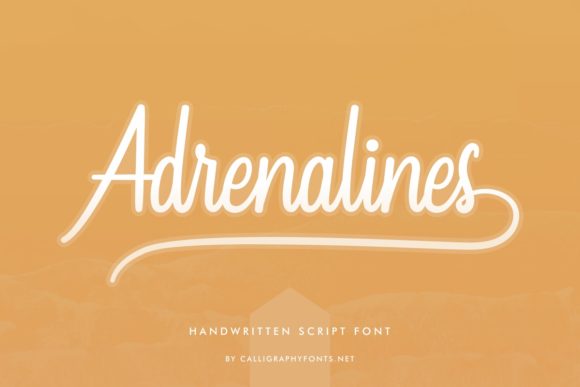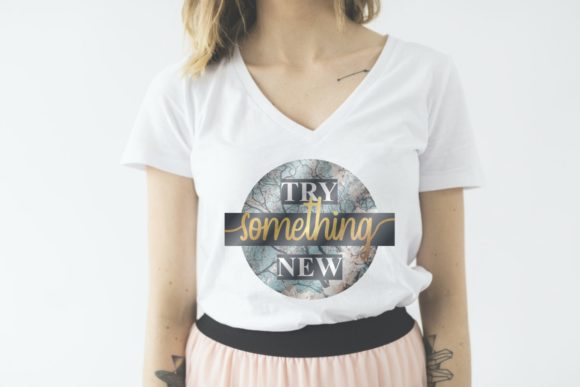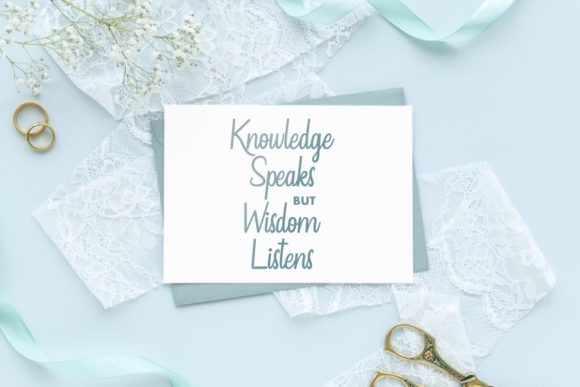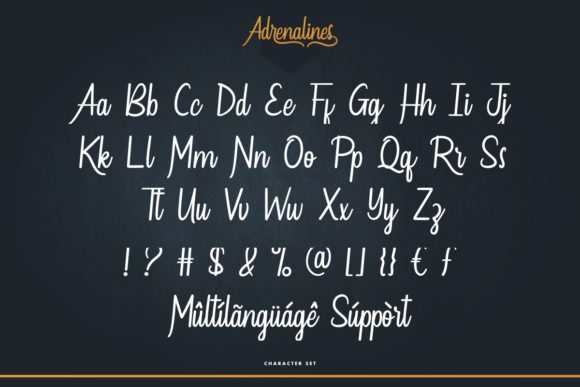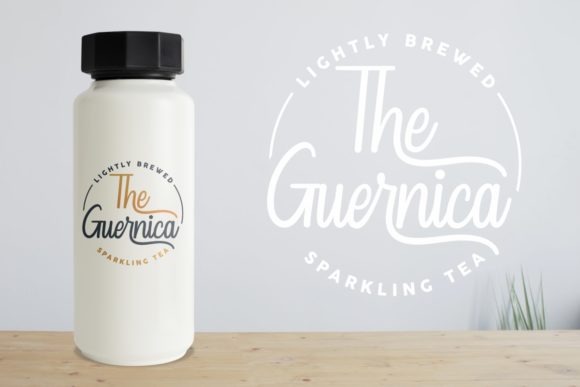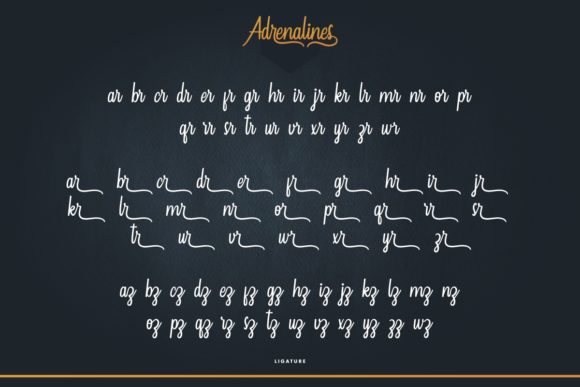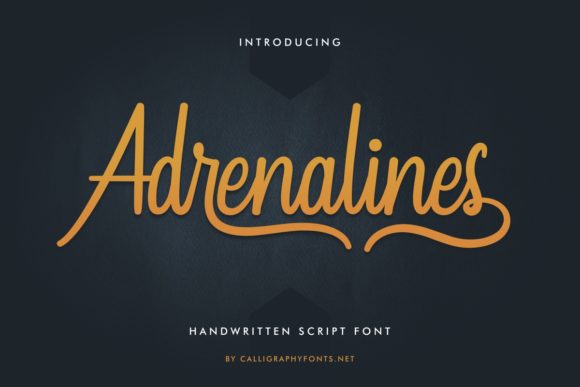
Discover the Elegance of Adrenalines Font: A Stylish and Delicate Addition to Your Designs
In the world of typography, fonts play a crucial role in conveying the message and aesthetic of a design. For designers and crafters looking for a stylish and delicate font to elevate their projects, Adrenalines Font is an excellent choice. This beautiful font boasts a clean, thin, and smooth vibe that is sure to make it a hit in any design you add it to.
What Makes Adrenalines Font Stand Out?
Adrenalines Font is more than just a pretty face; it has several features that make it a valuable addition to any designer’s toolkit. Here are some of the key characteristics that set it apart:
- Clean and Thin Design: The font’s sleek and slender lines give it a modern and sophisticated look that is perfect for designs that require a touch of elegance.
- Smooth Vibe: The smooth curves and lines of Adrenalines Font ensure that your designs look polished and refined, making it ideal for projects that require a high level of professionalism.
- PUA Encoded: One of the most significant advantages of Adrenalines Font is that it is PUA (Private Use Area) encoded. This means that you can easily access all the glyphs and swashes, giving you greater flexibility and creative control over your designs.
The Benefits of Using Adrenalines Font in Your Designs
Adrenalines Font is an incredibly versatile font that can be used in a wide range of design projects. Here are some of the benefits of incorporating it into your work:
- Elegant and Sophisticated: The font’s elegant and sophisticated design makes it perfect for projects that require a high level of refinement, such as luxury branding, high-end fashion, and upscale packaging.
- Easy to Read: Despite its delicate nature, Adrenalines Font is surprisingly easy to read, making it suitable for use in body text as well as headings and titles.
- Highly Customizable: With its PUA encoding, you can easily access a wide range of glyphs and swashes, allowing you to customize the font to suit your design needs.
How to Use Adrenalines Font in Your Design Projects
Using Adrenalines Font in your design projects is straightforward. Here are some tips to get you started:
- Pair it with Other Fonts: Adrenalines Font works well when paired with other fonts, especially those with a bold or serif design. Experiment with different combinations to find the perfect balance for your project.
- Experiment with Swashes and Glyphs: Take advantage of the font’s PUA encoding to add unique swashes and glyphs to your design. This can help to add visual interest and create a more dynamic look.
- Use it for Headings and Titles: Adrenalines Font is perfect for use in headings and titles, where its elegant and sophisticated design can really shine.
Adrenalines Font is a stylish and delicate font that is sure to become a favorite among designers and crafters. Its clean, thin, and smooth vibe makes it perfect for a wide range of design projects, from luxury branding to packaging and more. With its PUA encoding and highly customizable design, Adrenalines Font is an excellent choice for anyone looking to add a touch of elegance and sophistication to their work.